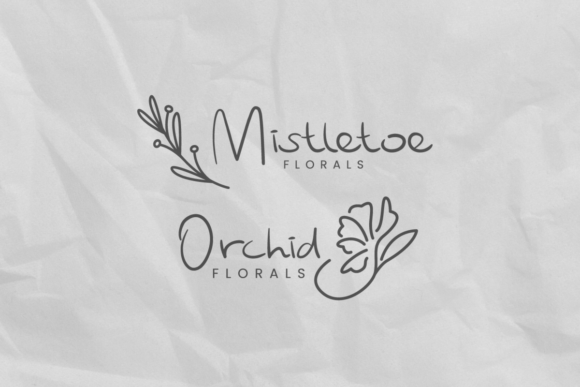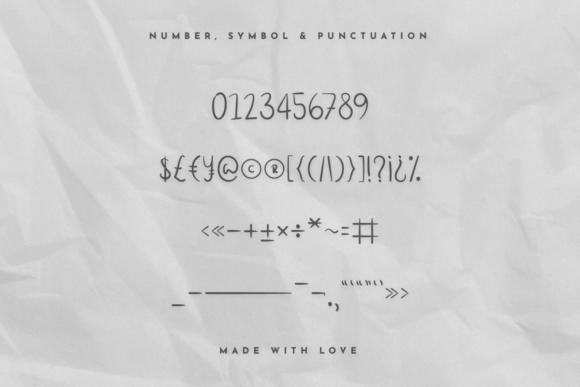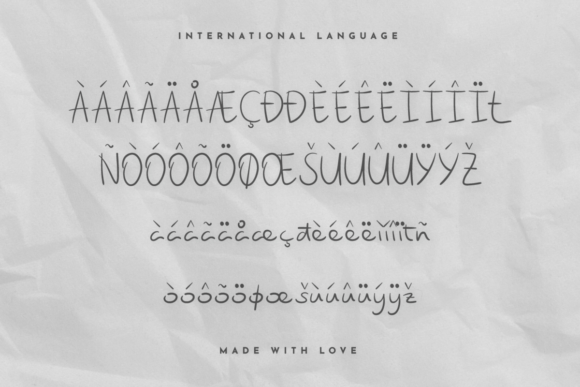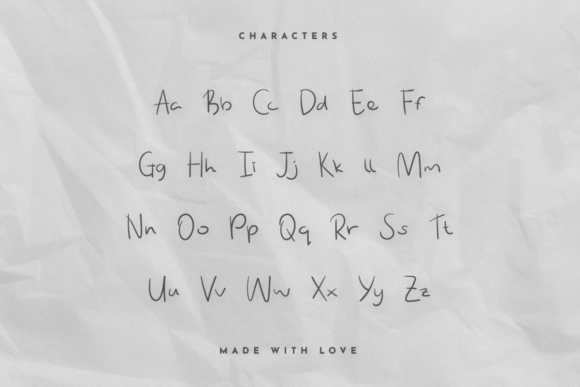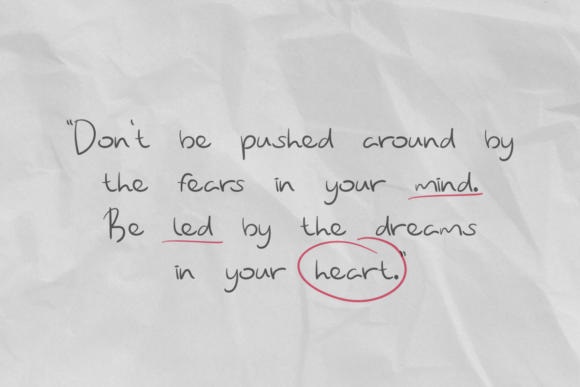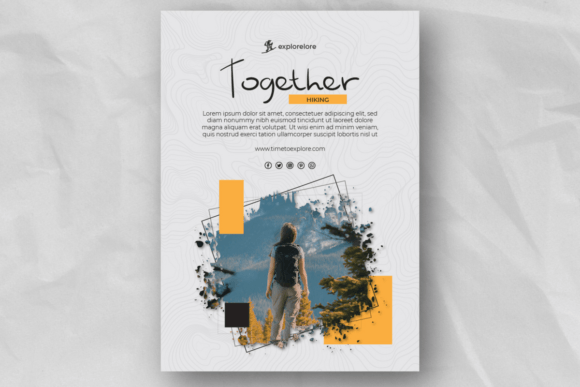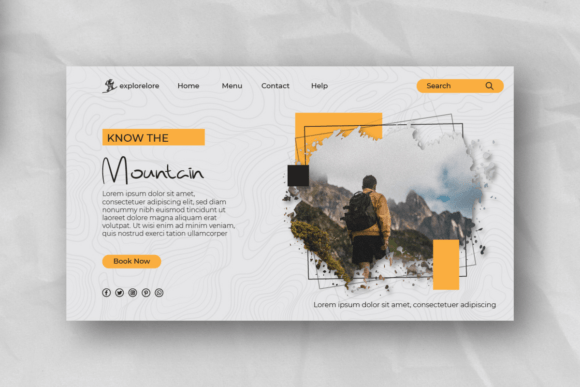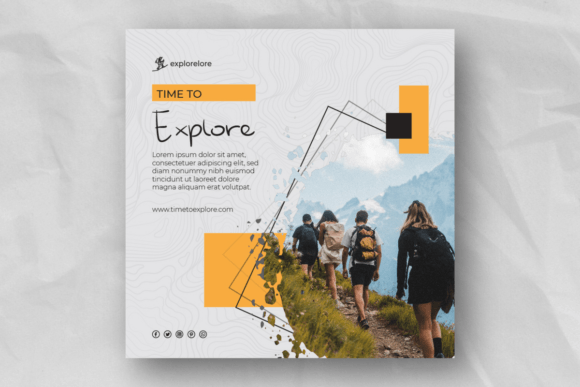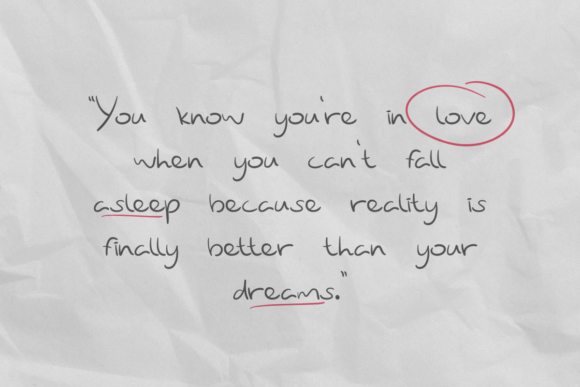
Aatmika Font
About Aatmika Font
Aatmika is a magnificent calligraphy script font featuring flexible and beautiful lines and curves. Designed in 2022, this font is poised to enhance the aesthetic appeal of your designs, giving them a touch of splendor and sophistication.
Perfect for a variety of applications, “Aatmika” adds an elegant flair to your invitation cards, posters, social media posts, lettering, book headings, and more. Its calligraphic style brings a sense of artistry and refinement, making it a versatile choice for projects where a touch of elegance is desired.
The flexibility of the lines and curves in Aatmika allows for a harmonious flow that complements various design contexts. Whether you’re working on formal invitations, eye-catching posters, or engaging social media content, this font adapts seamlessly to elevate your visual communication.
Make a statement with Aatmika as it seamlessly blends beauty and flexibility. The timeless calligraphy style of this font is designed to enhance the visual appeal of your projects, creating a sophisticated and refined aesthetic. Embrace Aatmika in 2022 and let its splendid design add an extra layer of elegance to your creative endeavors.